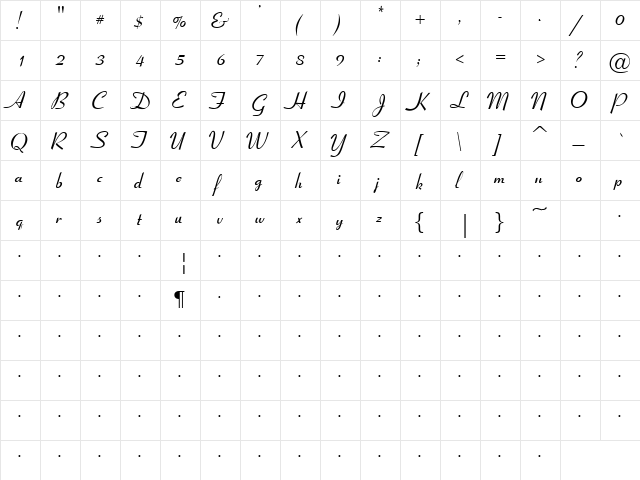
QTCoronation Regular
Design Context for QTCoronation Typeface
QTCoronation takes a measured approach to typography — its balanced proportions and neutral character make it a reliable workhorse for both digital and print work.